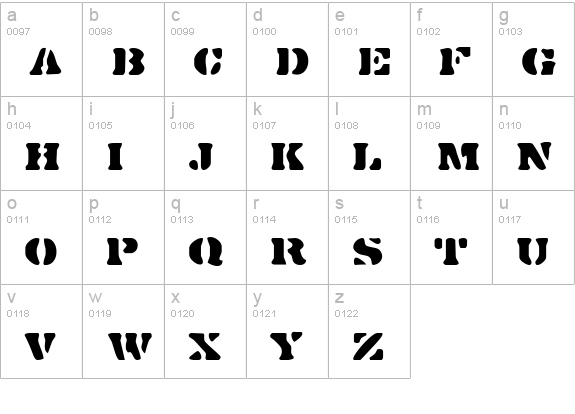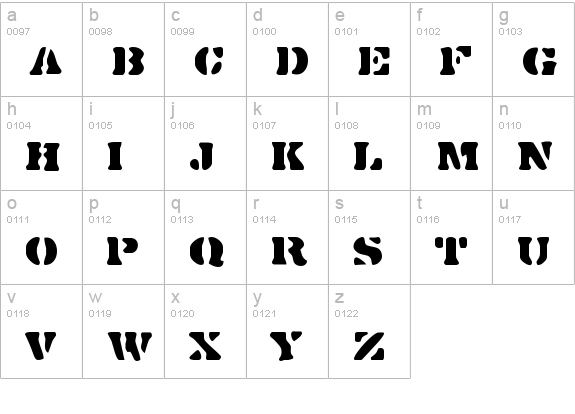
DirtyBaker'sDozen Font Details
DirtyBaker'sDozen font is a unique and quirky typeface that is perfect for adding a touch of playful charm to your designs. With its irregular and slightly messy appearance, this font is sure to stand out and make a statement. Whether you're working on a creative project, a fun poster, or a whimsical logo, DirtyBaker'sDozen font will bring a sense of fun and creativity to your work. And the best part? DirtyBaker'sDozen font is completely free to download at FontsMarket.com! Yes, you read that right - you can get your hands on this delightful font at no cost at all. So why wait? Add a touch of whimsy to your designs with DirtyBaker'sDozen font today!